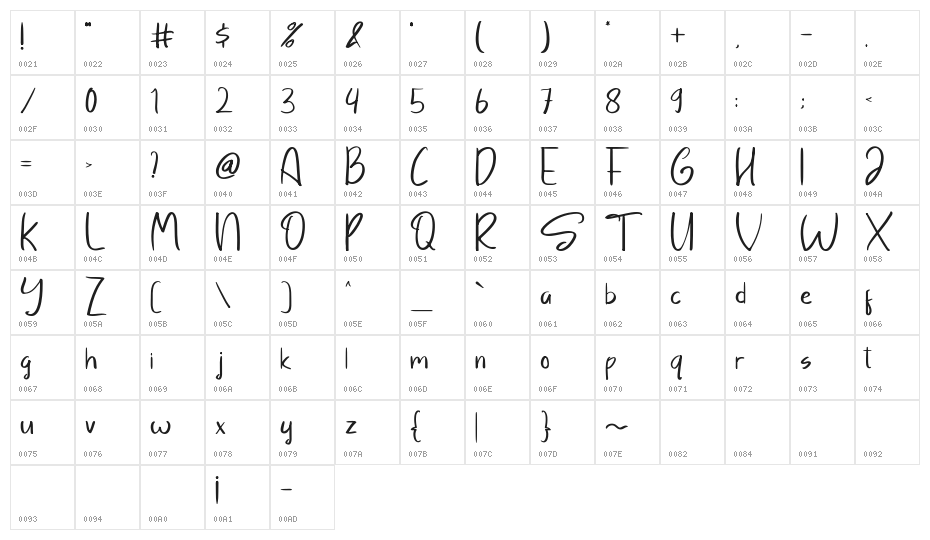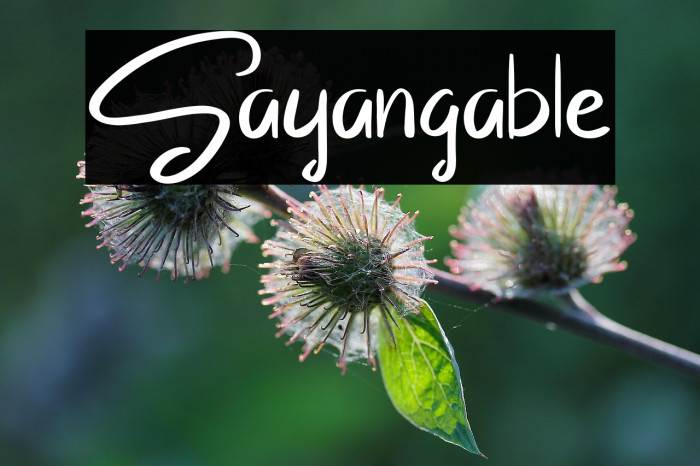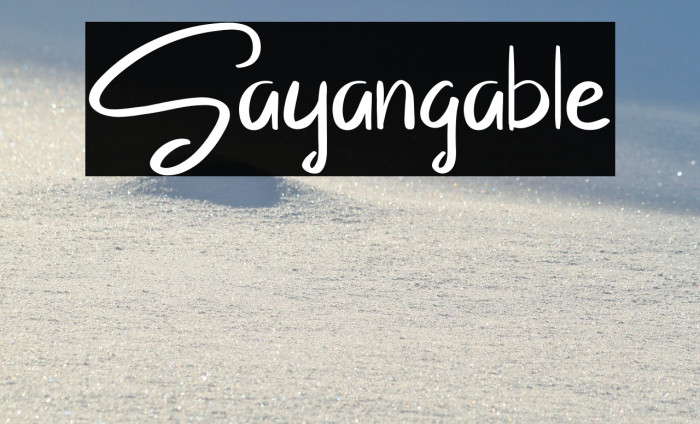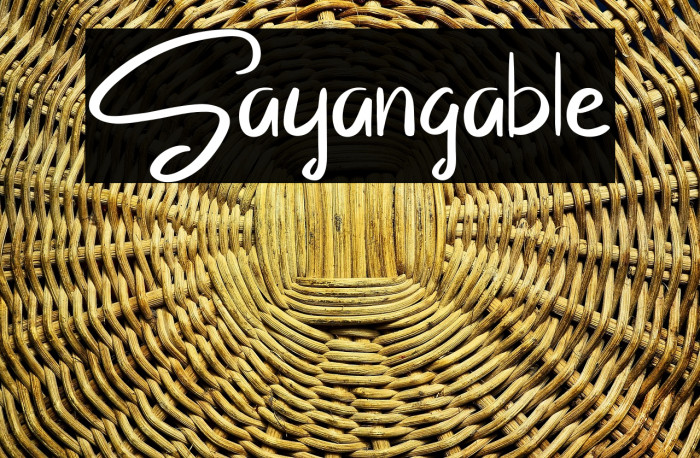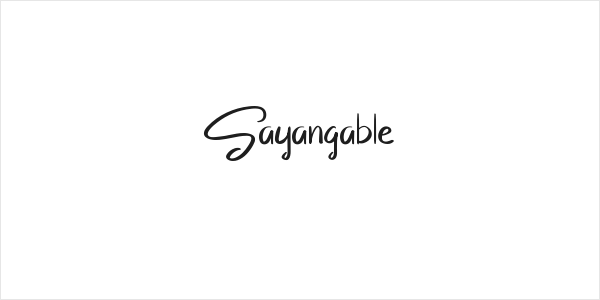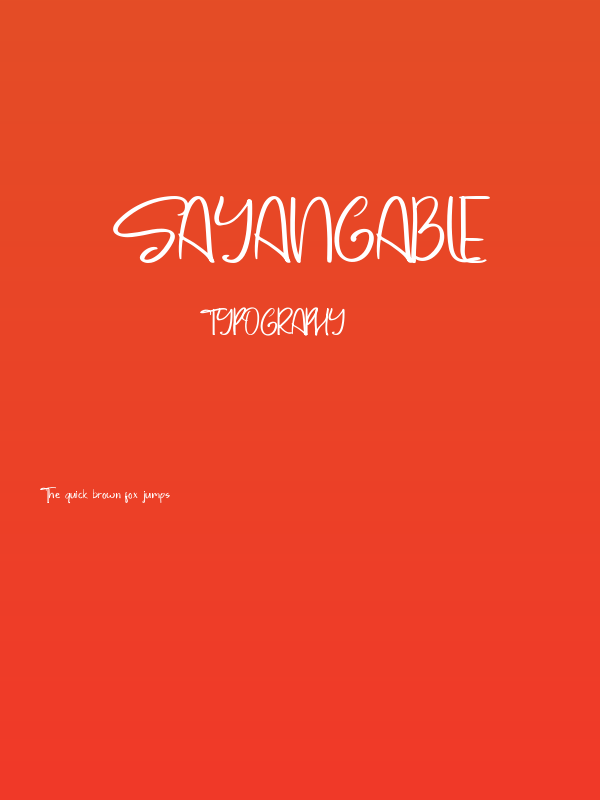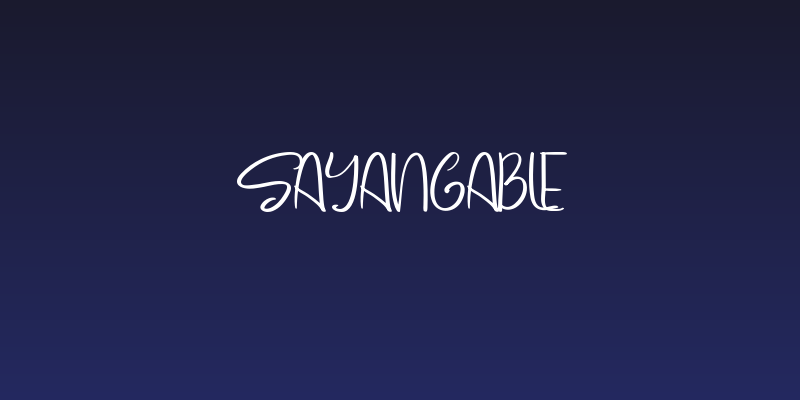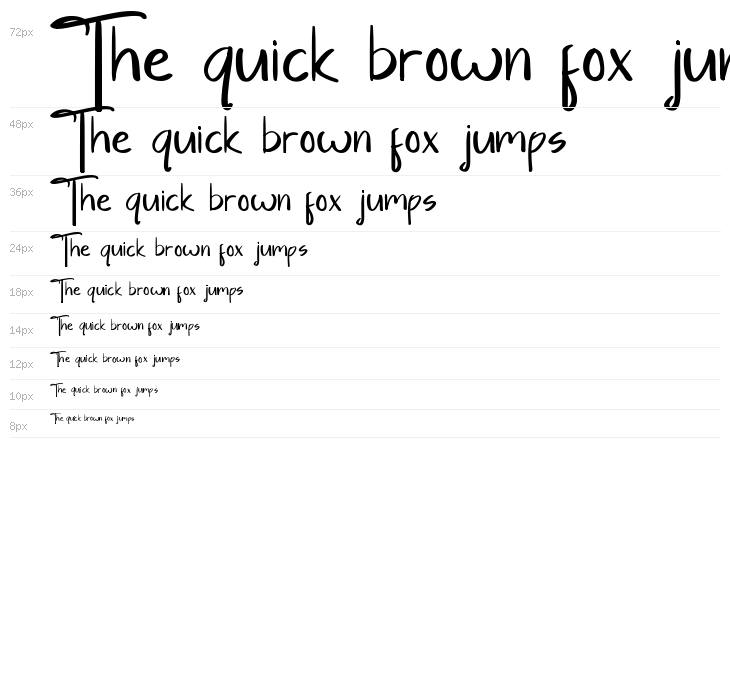
Sayangable Font
Sayangable Description
This font features a playful and casual handwritten style, characterized by its fluid and dynamic letterforms. The uppercase letters exhibit a mix of rounded and angular shapes, giving them a unique and lively appearance. The lowercase letters maintain a consistent flow, enhancing readability while preserving the font's informal charm. Numbers and special characters are crafted with the same whimsical touch, ensuring a cohesive look across all text elements. The strokes vary in thickness, adding a sense of movement and energy to the overall design.
| Overall Style | Casual |
| Use Case | Logos, Headlines, Social Media |
| Proposed Projects | Ideal for greeting cards, personal branding, social media graphics, and creative projects that require a friendly and approachable aesthetic. |